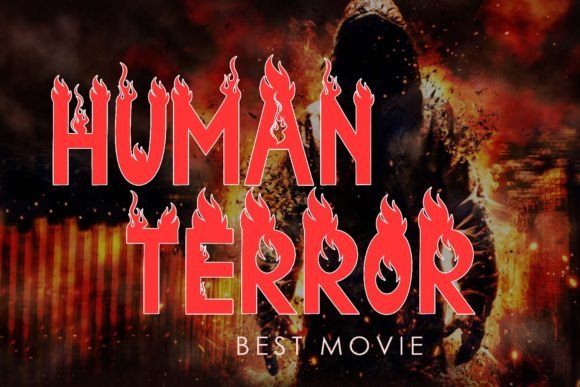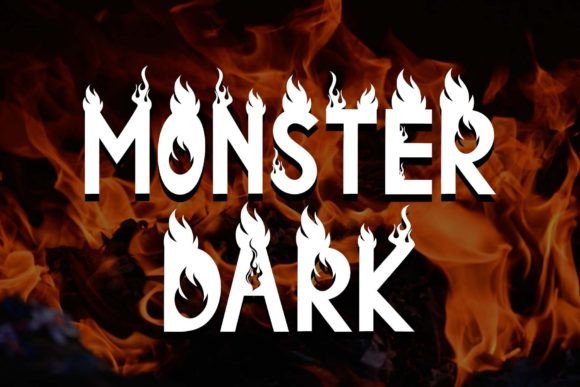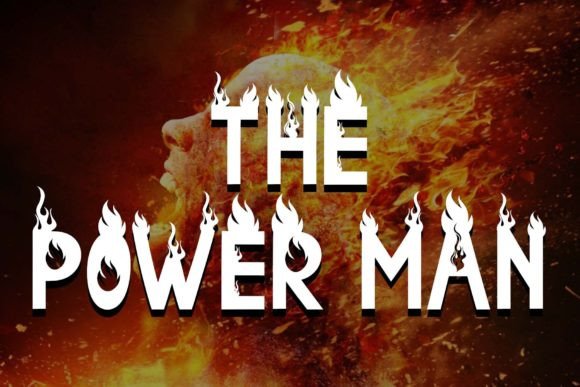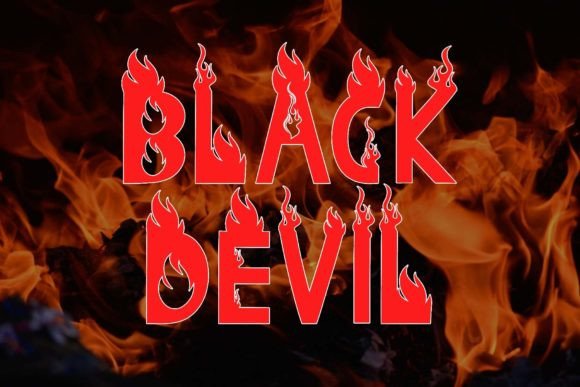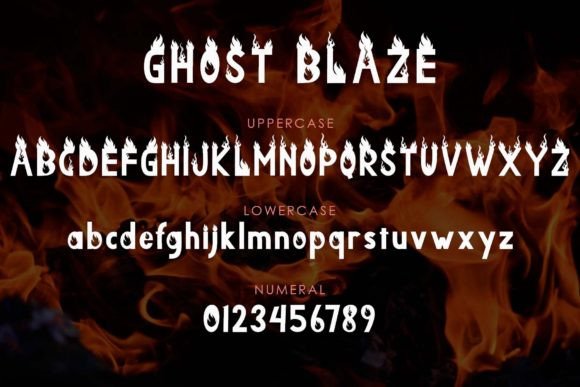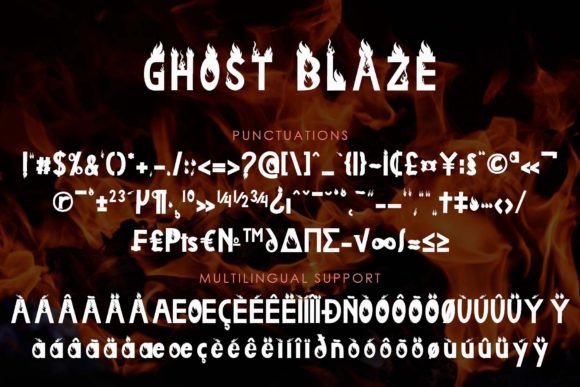
Introduction to Ghost Blaze Font
“Ghost Blaze” is a horror font with elegant flame decoration.
This font is equipped with uppercase, lowercase, numerals, punctuations and multilingual support Very suitable for Halloween, film titles, comic titles, posters, stickers, branding, banners, logos, business branding and others.